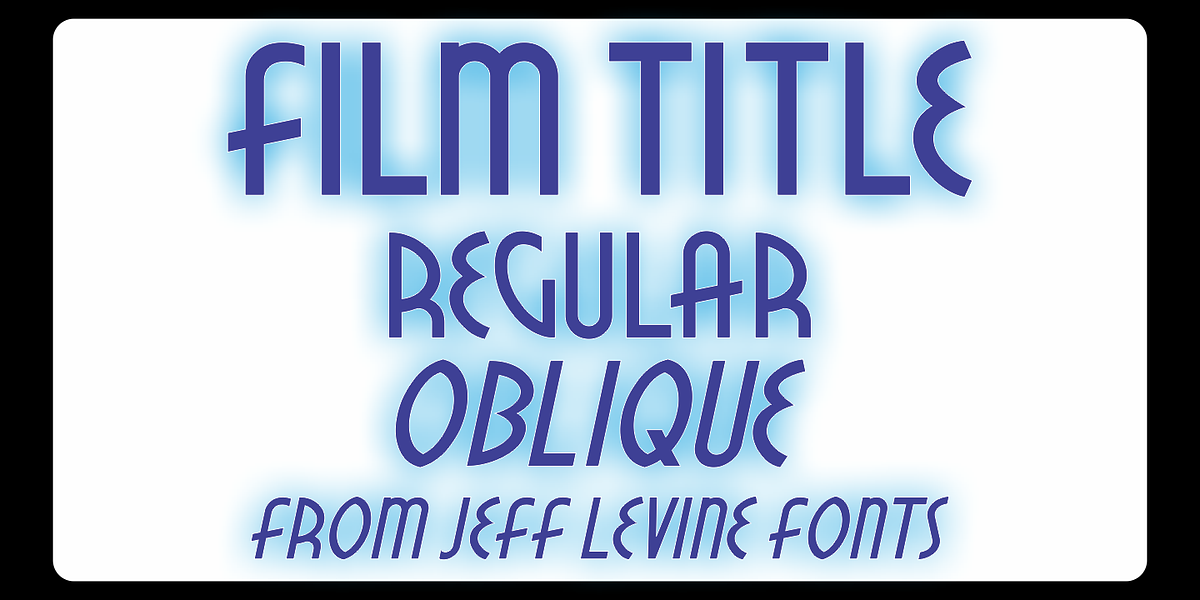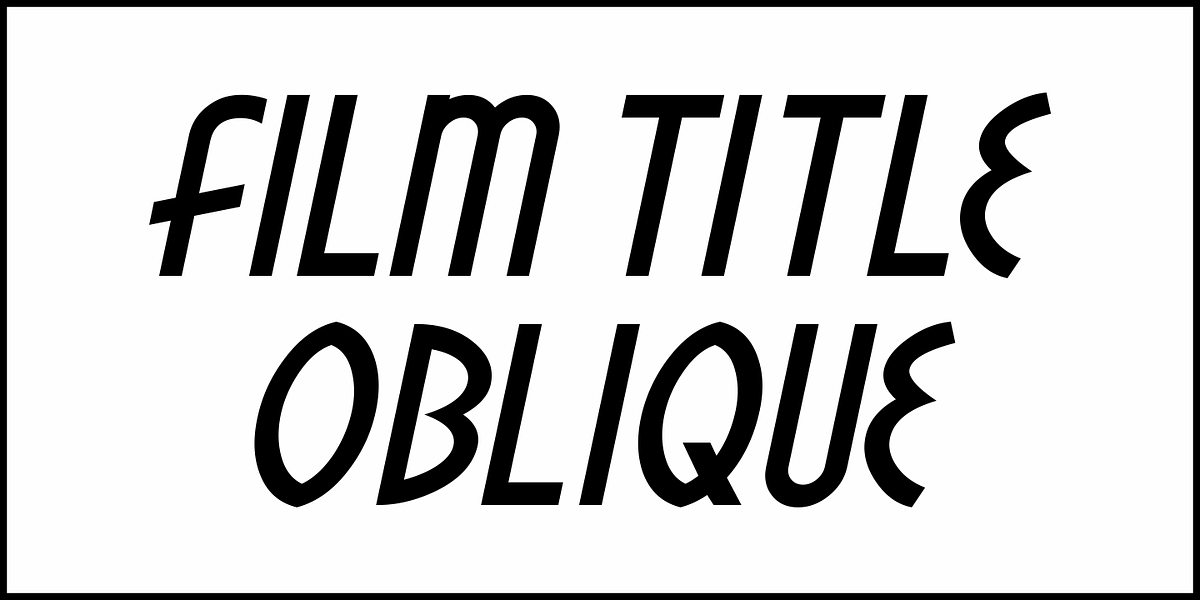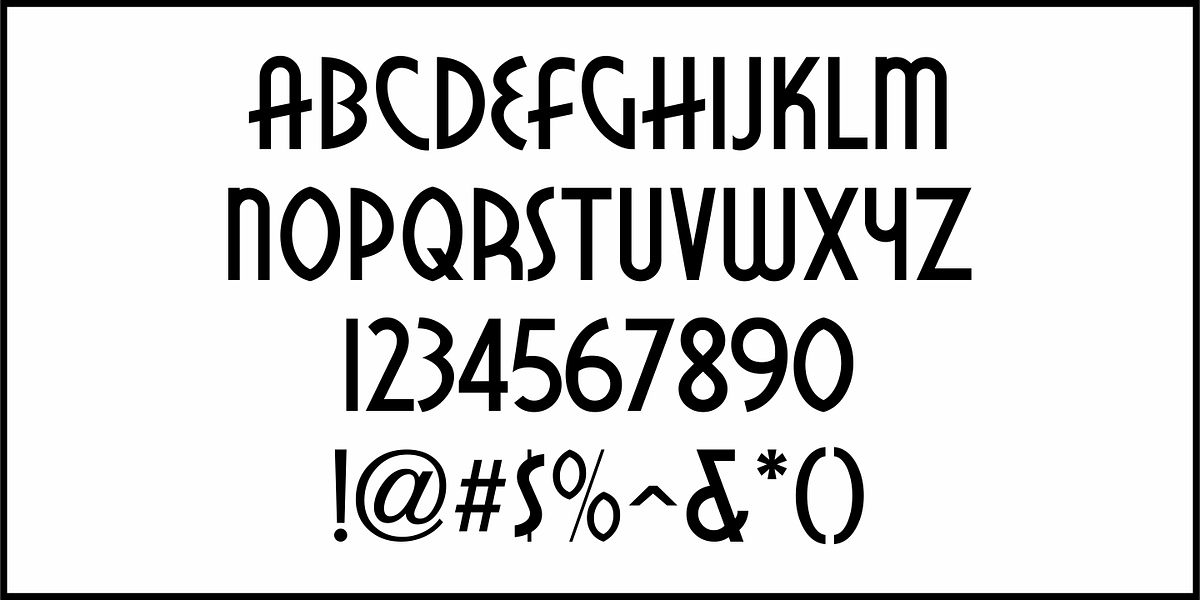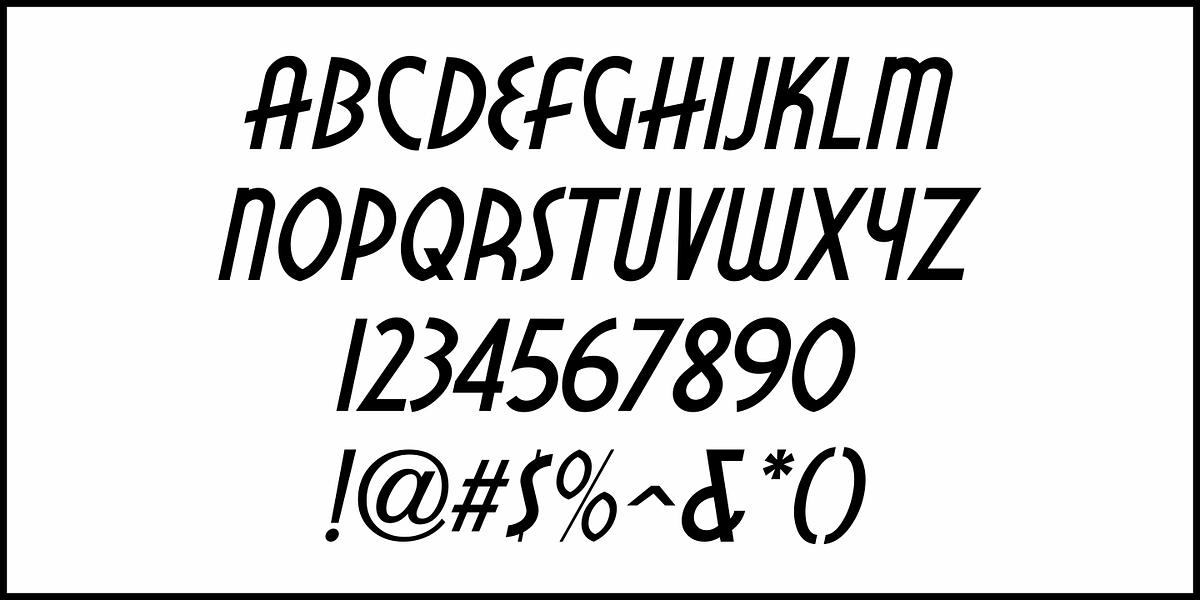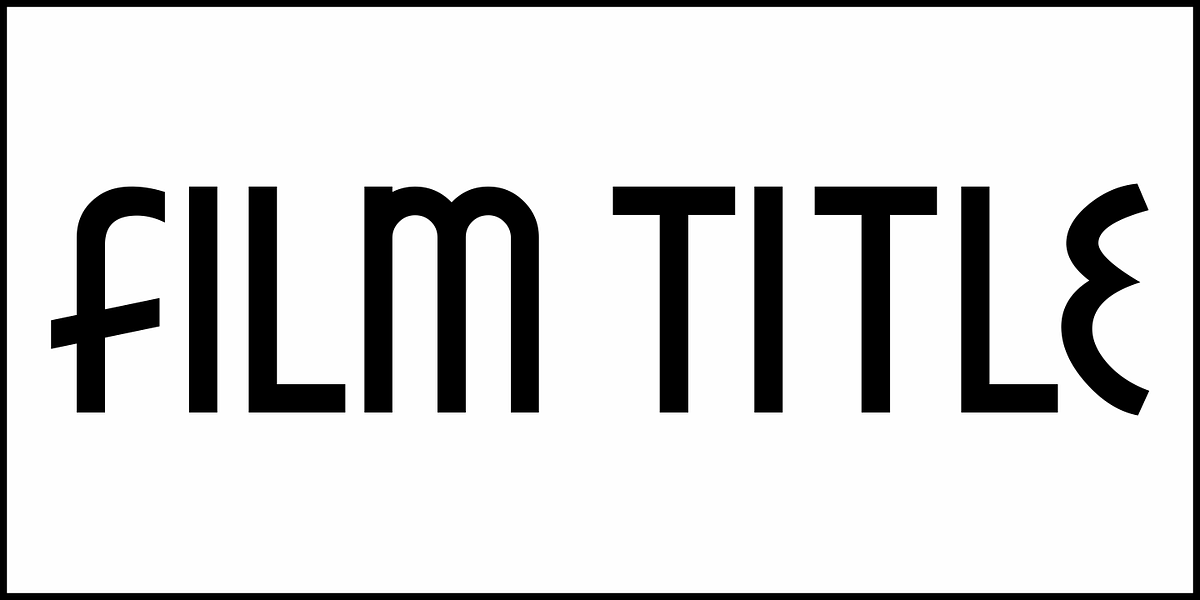
Film Title JNL
A World War II training film had its opening title card “First Aid” hand lettered in a casual, Art Deco sans serif design.
This is now available digitally as Film Title JNL, in both regular and oblique versions.